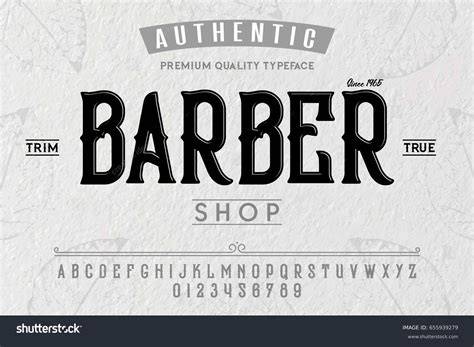
The Latest Barber Fonts Of 2023
Why Barber Fonts Are Important for Designers
In the world of design, barber fonts are important for creating stunning visuals. From logos to posters, barber fonts can be used to make a design stand out from the crowd and catch the eye of potential customers. A good barber font conveys the message of a brand or product in an easily recognizable and memorable way. As a designer, it is important to have a good selection of barber fonts on hand to ensure the success of a project.
Types of Barber Fonts
Barber fonts come in a variety of styles, ranging from traditional and classic to modern and edgy. Some of the most popular barber fonts include Script, Sans Serif, Slab Serif, and Display. Each type of font has its own unique characteristics and it is important to choose a font that best suits the style and message of the design. For example, Script fonts are ideal for creating a more elegant, sophisticated look, while Sans Serif fonts are better for creating a more modern and minimalistic look.
Choosing the Right Barber Font
Choosing the right barber font for a design can be a daunting task. With so many options available, it can be difficult to determine which font is best for the project. One of the best ways to narrow down the choices is to consider the message that the design is attempting to convey. For example, a logo for a luxury brand should use a font that conveys sophistication and elegance, while a logo for a punk rock band should use a font that conveys a rebellious attitude.
Using Barber Fonts in Other Areas of Design
Barber fonts can be used in a variety of ways beyond logos and posters. For example, they can be used to create stunning typography art. Typography art is a form of art that uses text to create images or patterns. By using a barber font, designers can create unique and eye-catching typography art that can be used to add a unique touch to any design project.
Barber fonts are an important part of the design world. From logos to posters and from typography art to branding, barber fonts can be used to create stunning visuals that capture the attention of potential customers. By carefully considering the message that needs to be conveyed and selecting the right font, designers can ensure that their design projects are successful.